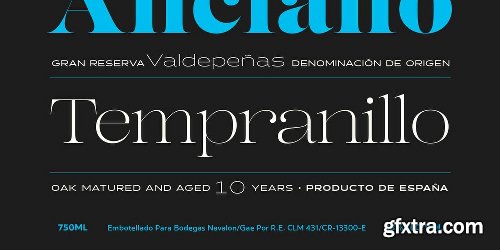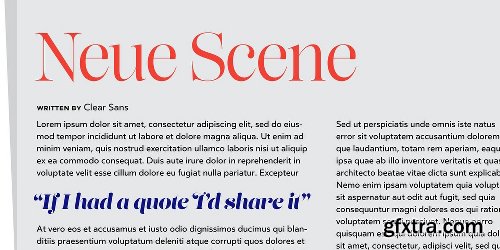
Positype has been one of the most recognized and award-winning independent type foundries around. When tasked with picking which display typefaces from the library worked well together, Neil Summerour compiled a special collection of typefaces of varying contrast, width, and weight—all chosen to work well together in almost any environment.
Those 16 fonts are now bundled into a single collection and offered at an unbelievable price. The collection includes everything from Clear Sans, a rational geometric sans serif that retains the warmth of design that radiates from the movements of the hand; to confident, unapologetically indulgent Lust. And it really stretches its versatility with the addition of Halogen, an expansive contemporary extended sans, and Lust Script.